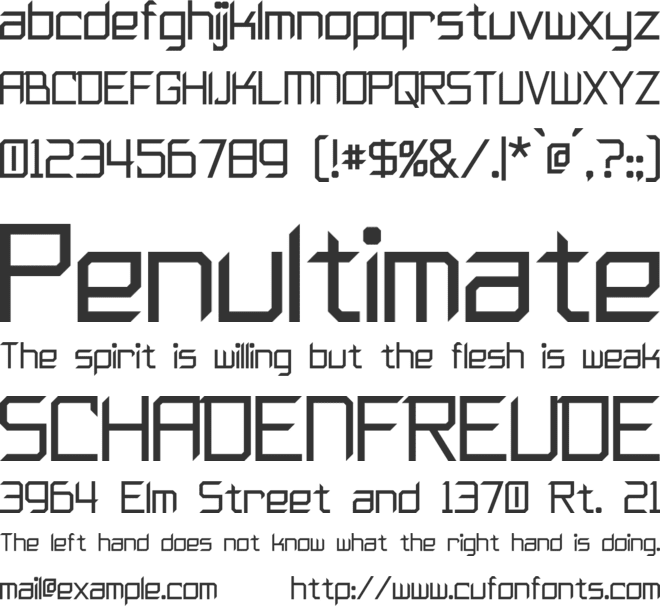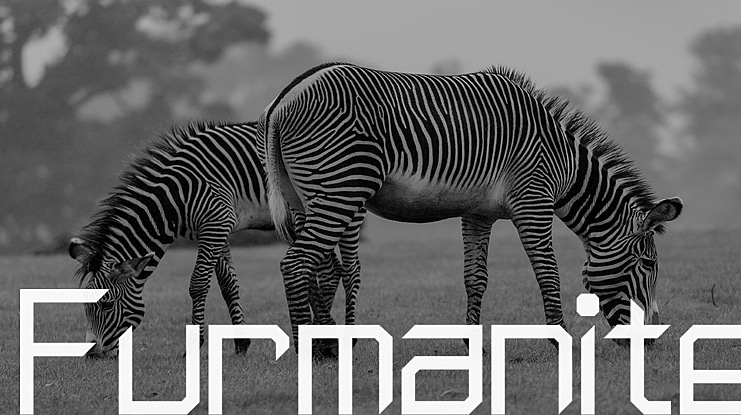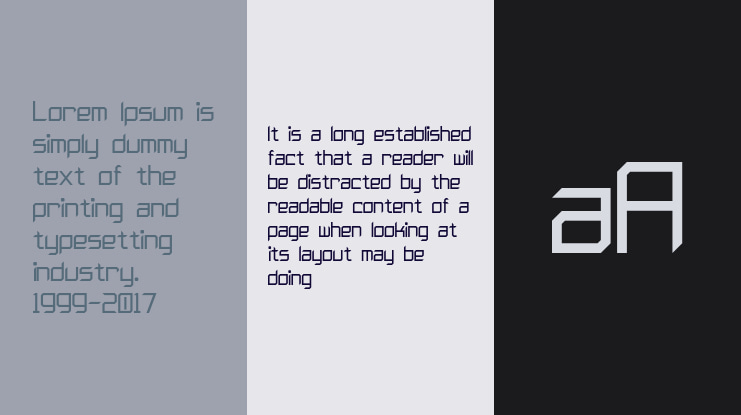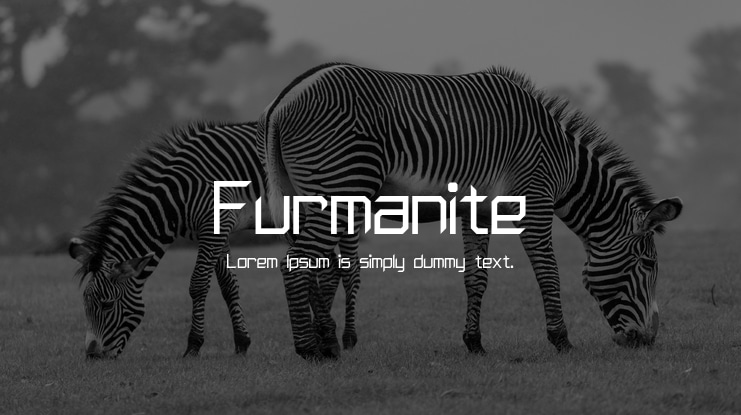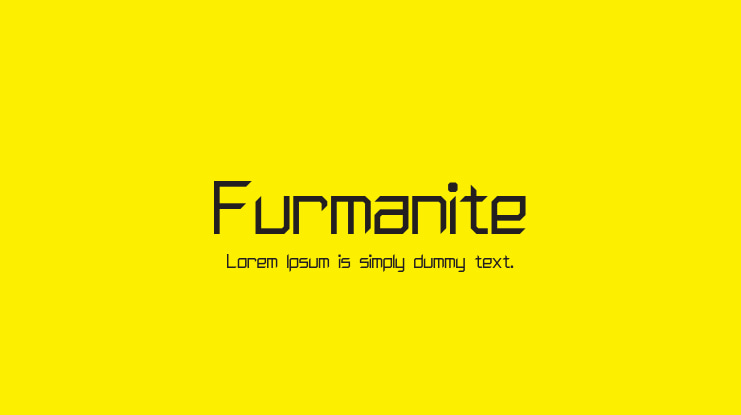
Furmanite Font Family
Neale Davidson
This simple 'lcd-like' typeface is based on the lettering used by the Maximals in an the old "Critical Mass" BotCon exclusive comic. Left and right braces replaced with Maximal and Predacon insignia, respectively. Includes italic and bold versions.